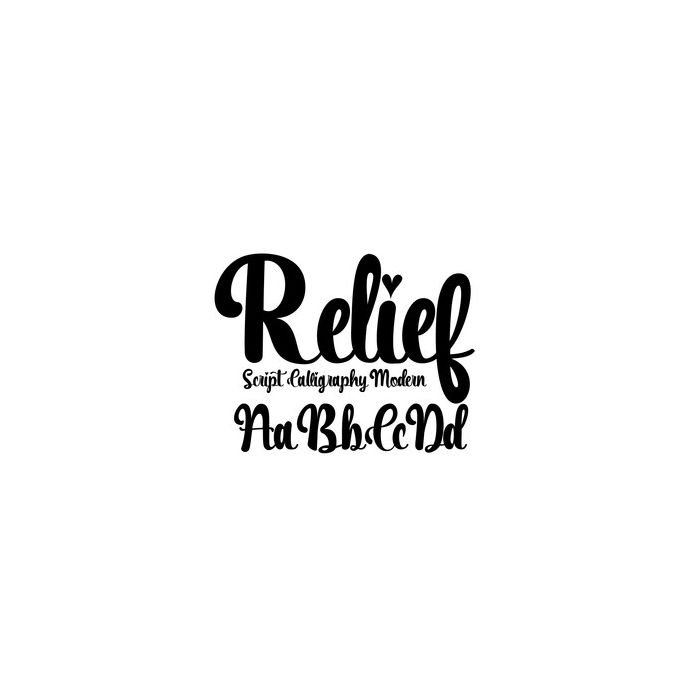
Thick script reliefs that are straightforward and skillfully charming when combined in any design are also suitable for welcoming the new year. Perfect for projects, products, crafts, invitations and personalization. Includes alphabet, numbers, and punctuation.